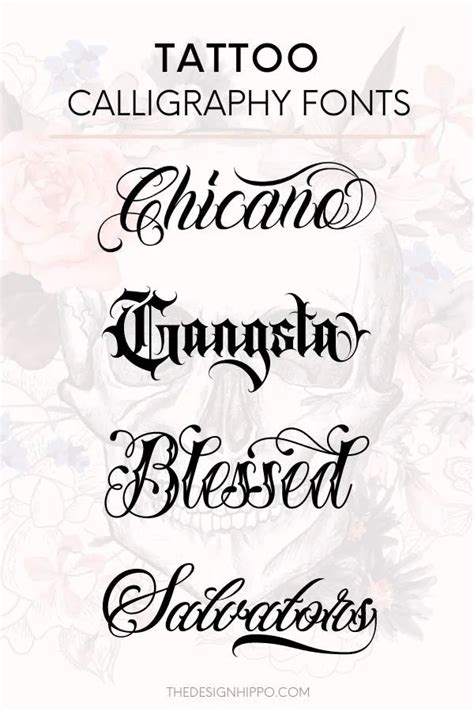
Calligraphy Tattoo Fonts, This typeface is one of the most elegant tattoo fonts on our list. That is where a hand lettering generator comes in handy.
Wildcats is a vintage calligraphy style tattoo font you can use to craft titles in your posters, flyers, badges, labels, and more. Gisellano à € by yan studio. Home tattoos cute weird gothic more » graphic fonts alphabets.
Go italics handwriting elegant graffiti arabic ancient. Every font is free to download! Calligraphy tattoos are the most popular designs in tattoos. Here is a different aesthetic when it comes to calligraphy fonts for procreate. People, for this reason, love calligraphy style font to get that middle eastern, arabic touch to their tattoos making it look vintage yet extremely cool.
Check out this list of some of the best bold fonts, from bold calligraphy fonts to bold tattoo fonts, bold handwriting fonts, and big bold fonts with a retro feel. People, for this reason, love calligraphy style font to get that middle eastern, arabic touch to their tattoos making it look vintage yet extremely cool. Shop calligraphy tattoo fonts on.
Calligraphy fonts for tattoos are one of the most popular choices for text in the tattoo world. The font comes with multilingual support for 17 different languages along with 453 glyphs and lots of alternate characters. Go italics handwriting elegant graffiti arabic ancient. People, for this reason, love calligraphy style font to get that middle eastern, arabic touch to their.
That is where a hand lettering generator comes in handy. This collection of 60 free calligraphy fonts has all your bases covered, from romantic and feminine swirls to masculine bold monoline fonts that will add character to any design. Tattoo script tattoo font tattoo calligraphy tattoo logo typography font typography tattoostyle tattoostudio tattoofonts tattooart tattoo logo tattoo lettering tatto swirly.
This elegant calligraphy font has beautiful, sweeping strokes. Burgues script created by alejandro paul is a typical font family of calligraphy style. So, if you're looking for some bold. Knowing how to form beautiful calligraphy letters is something that not many people have mastered. It has a lot more quick, energetic movement to it.